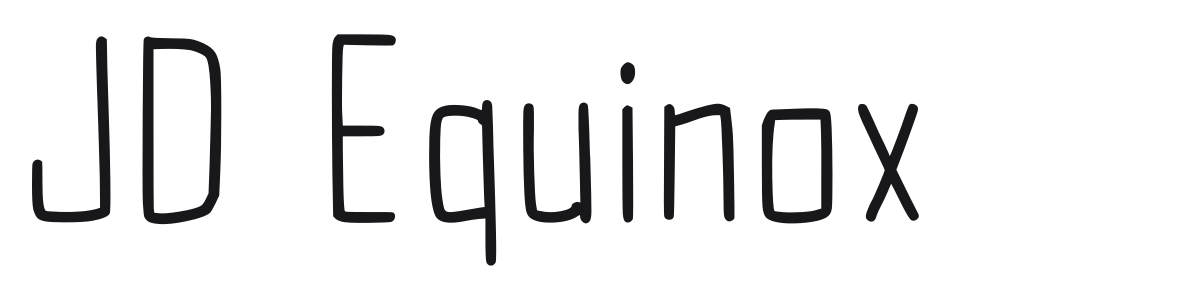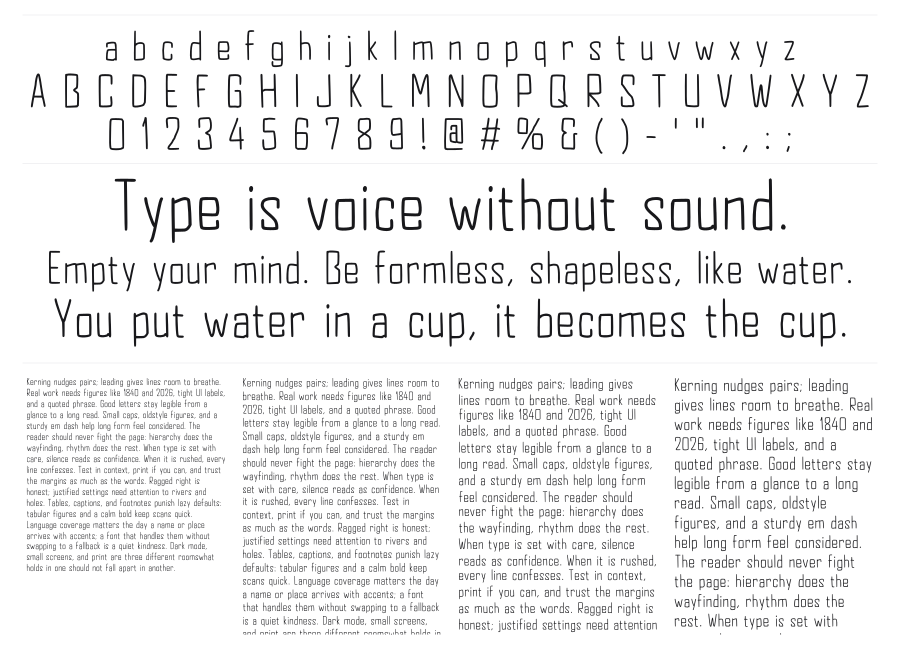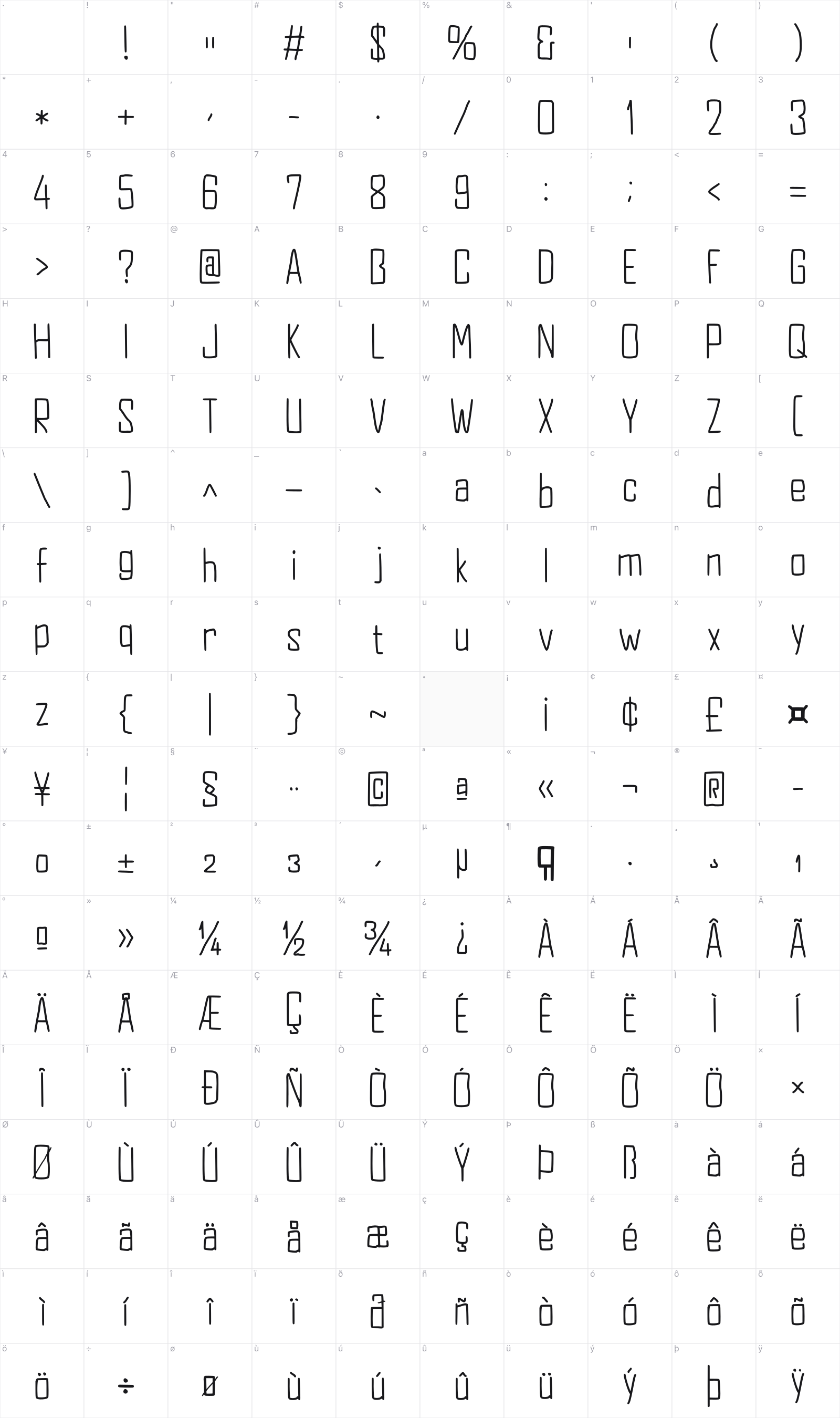
JD Equinox
JD Equinox is a light condensed geometric sans with rounded terminals and a gently hand-drawn quality. The monoweight stroke and narrow proportions keep it clean, while small organic imperfections in each character add warmth and character. It works well for display use anywhere a friendly but structured look is needed.